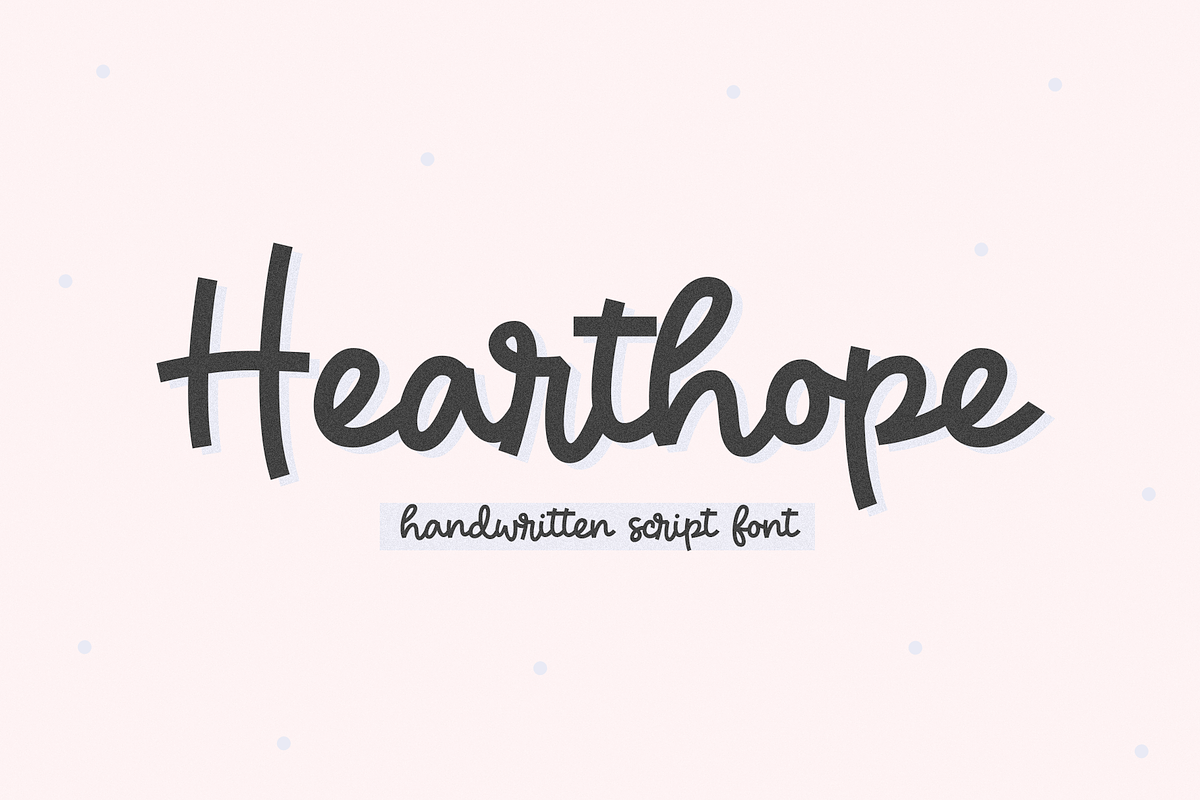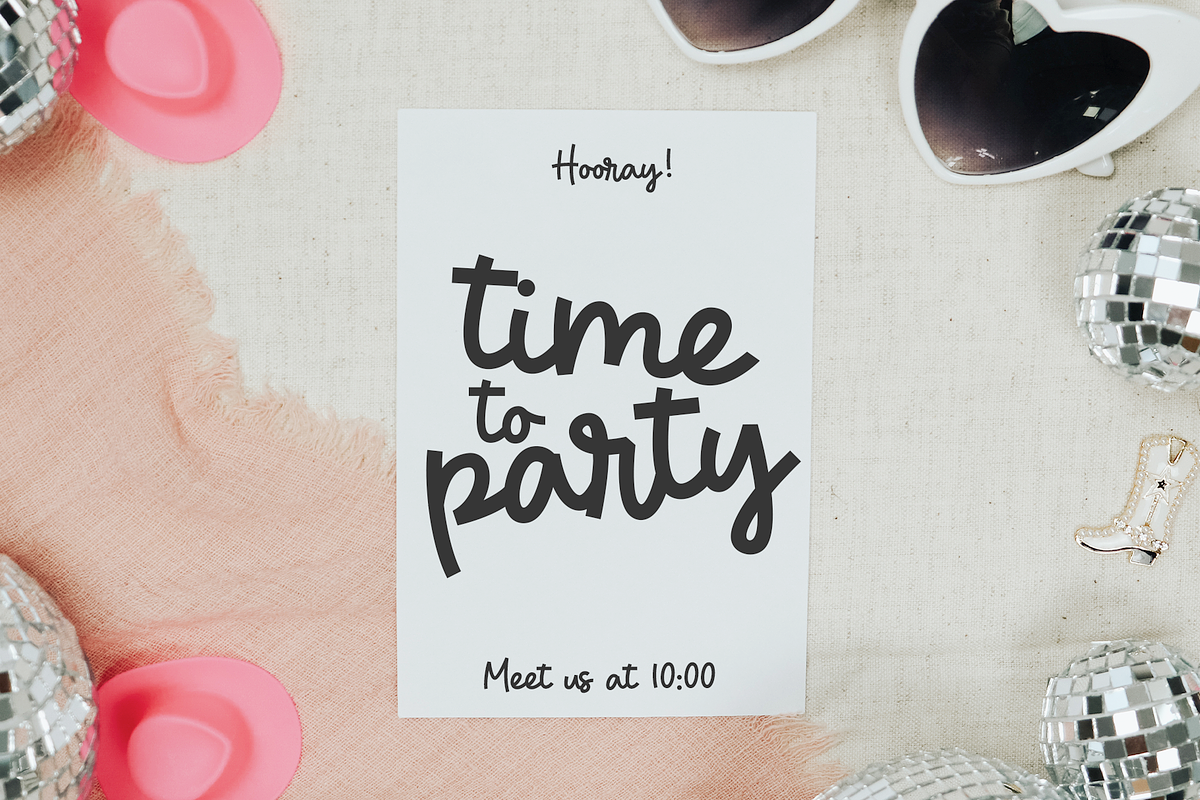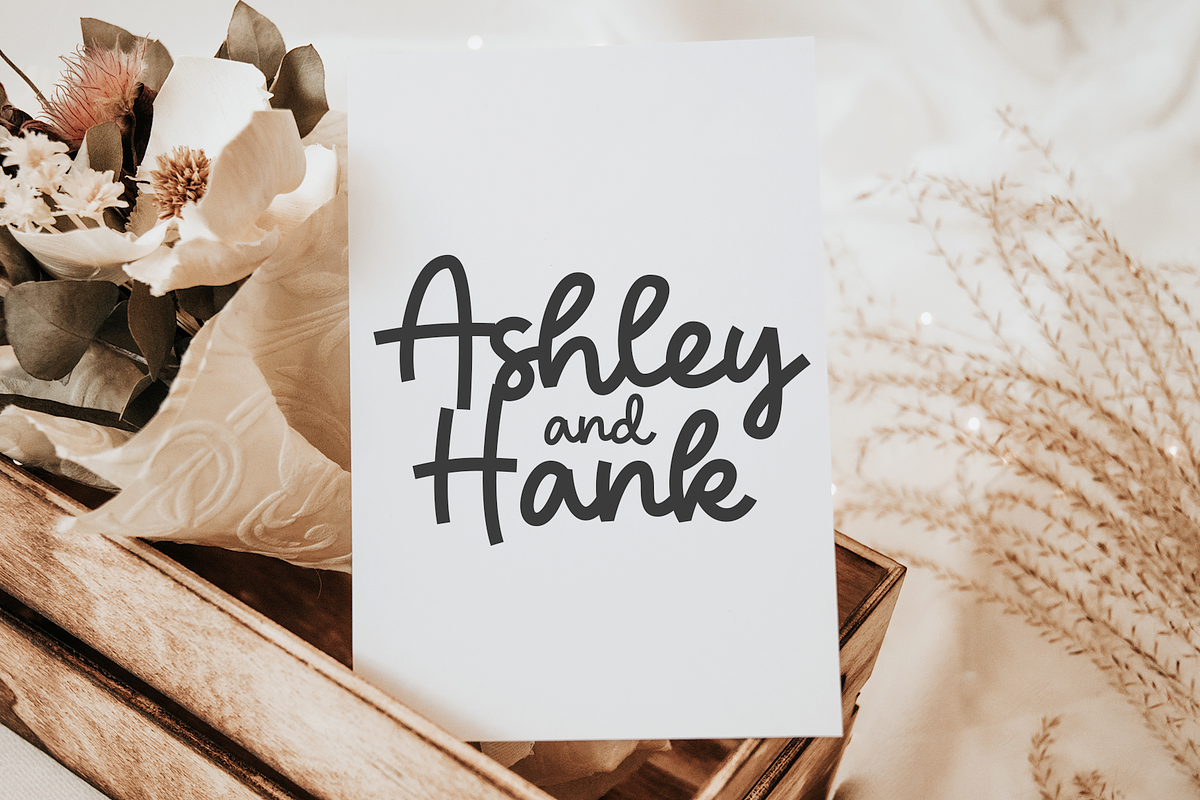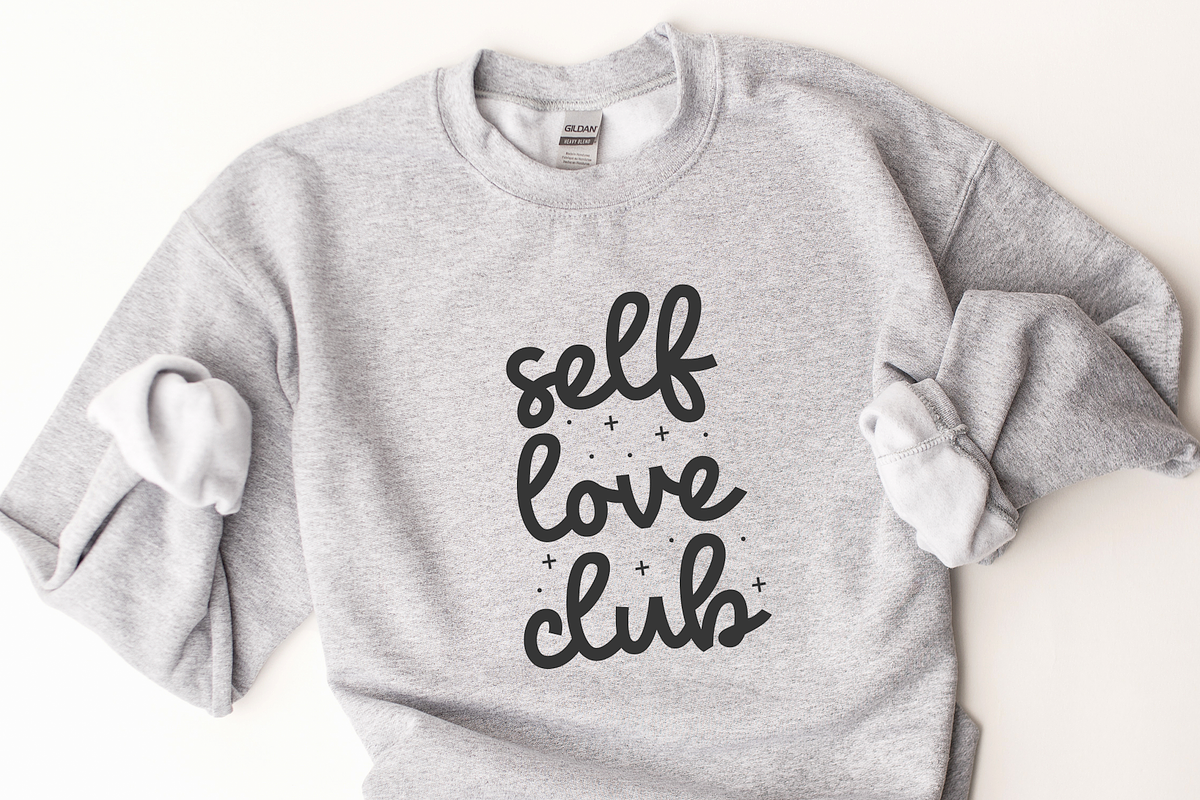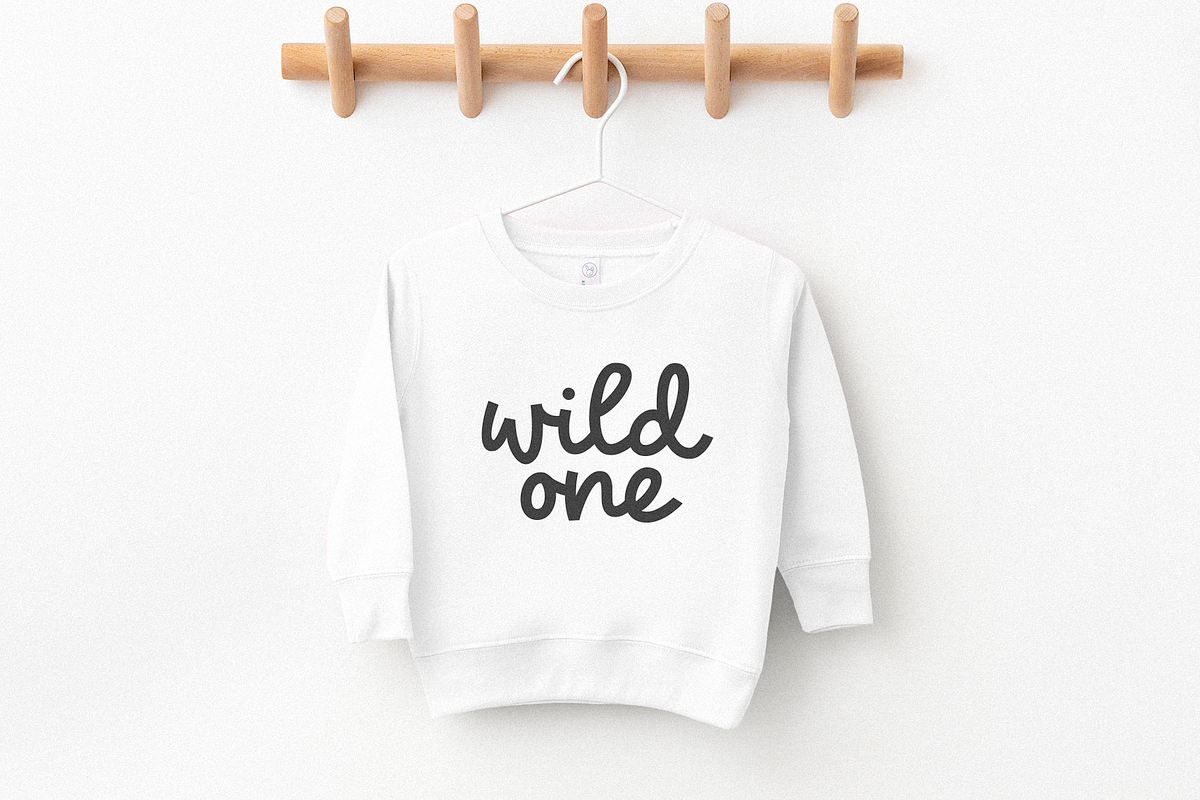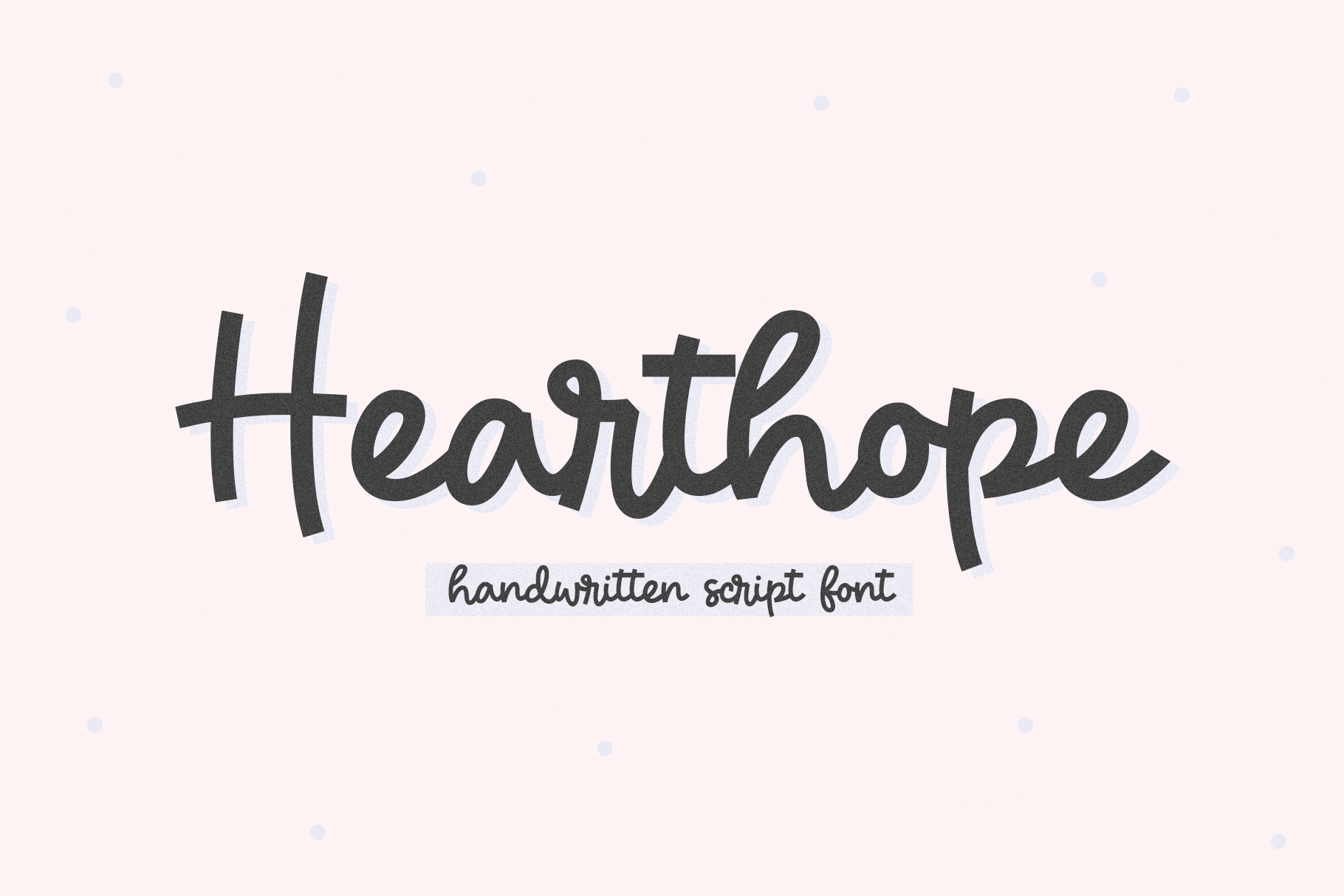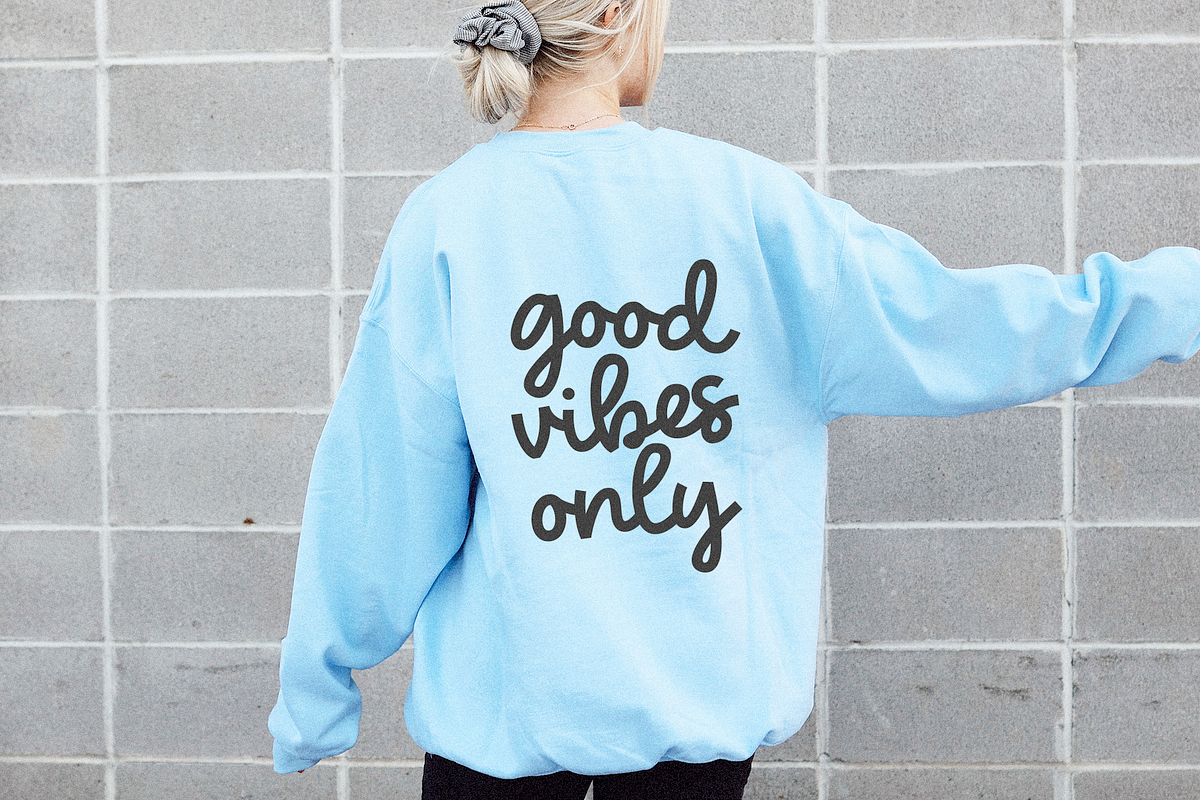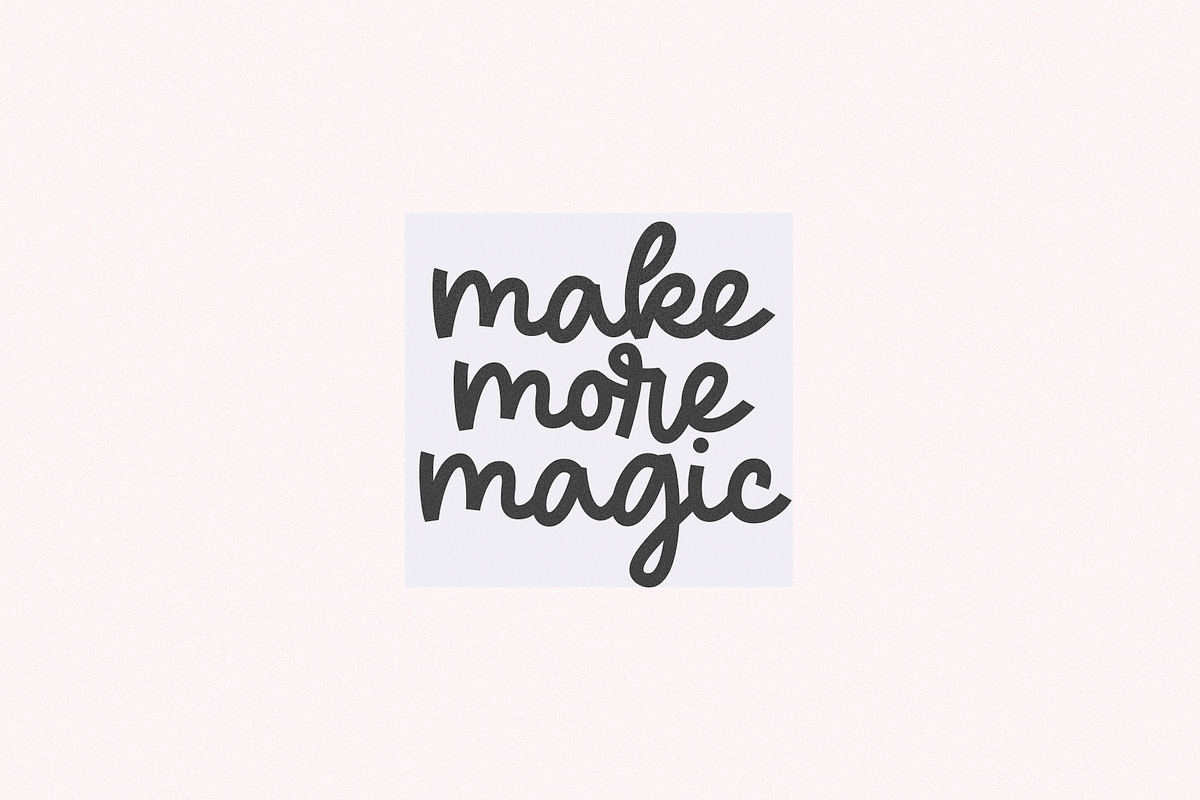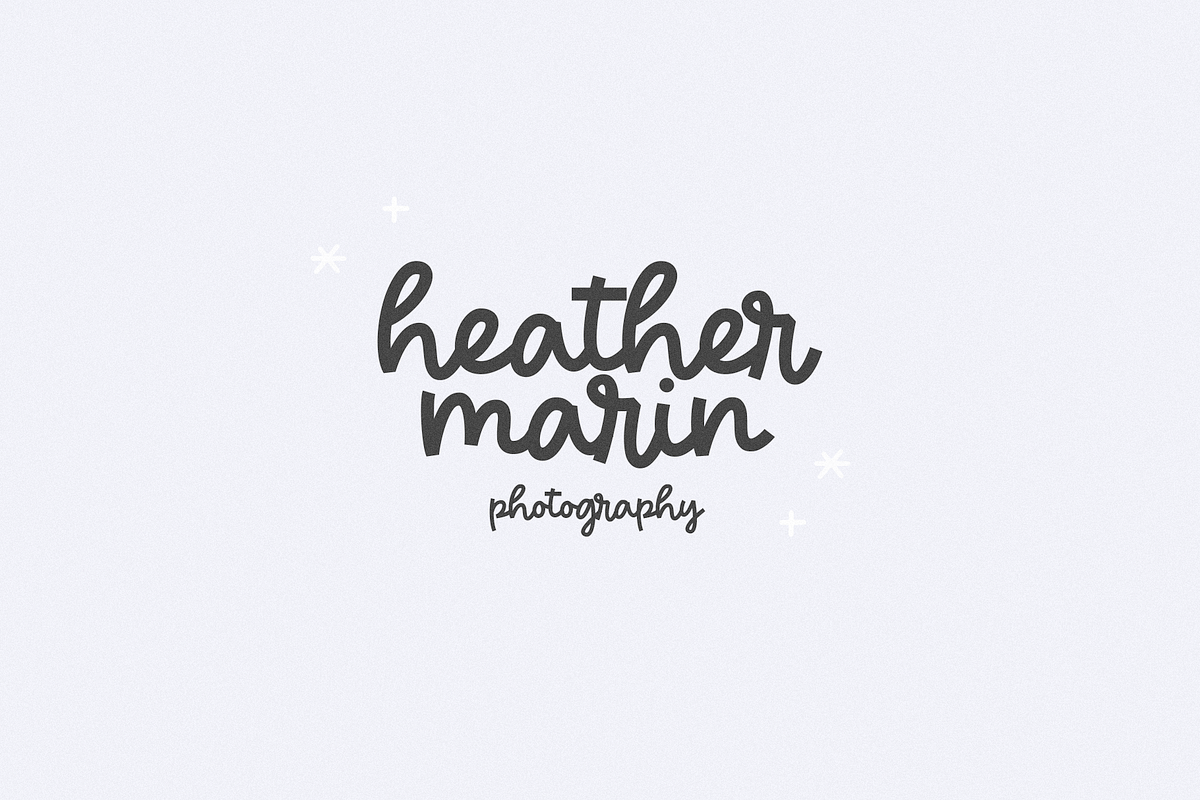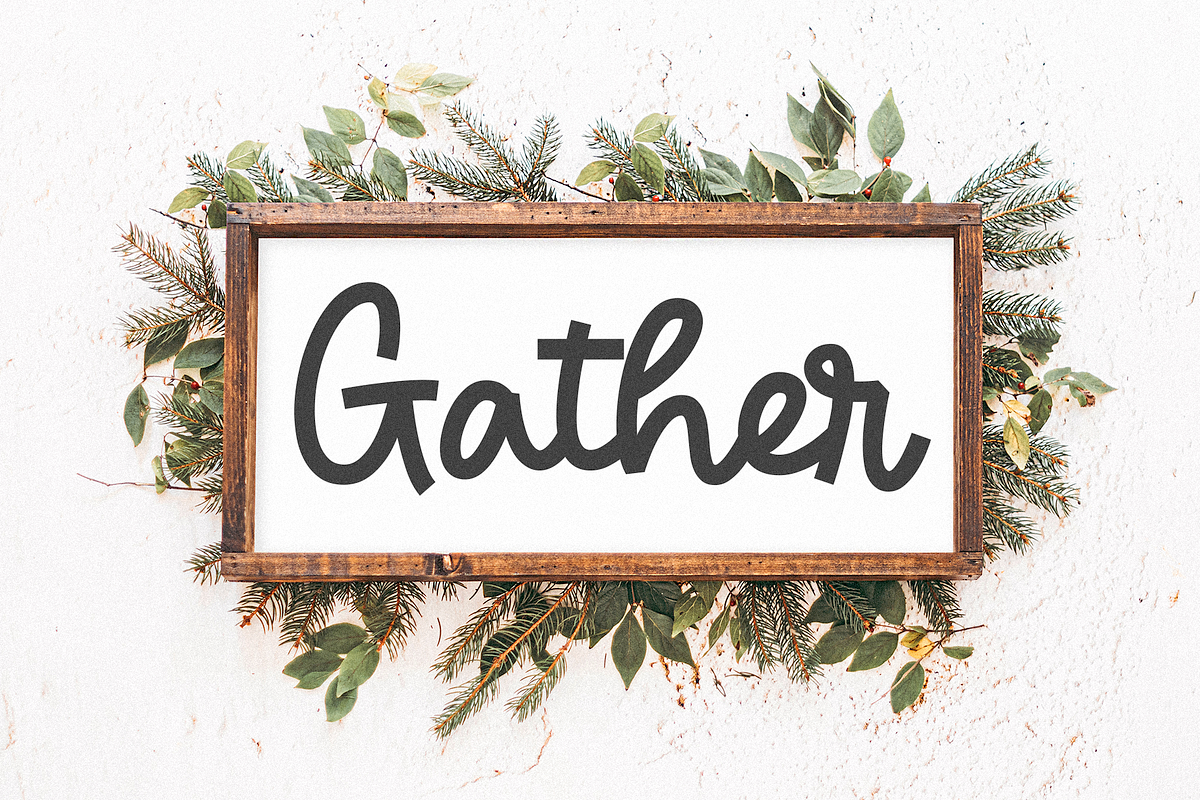
Hearthope | Handwritten Script Font
Hearthope is a handwritten script font.
This font is perfect for your craft projects, logos, branding, signs, farmhouse decor, invitations, shirts and more!